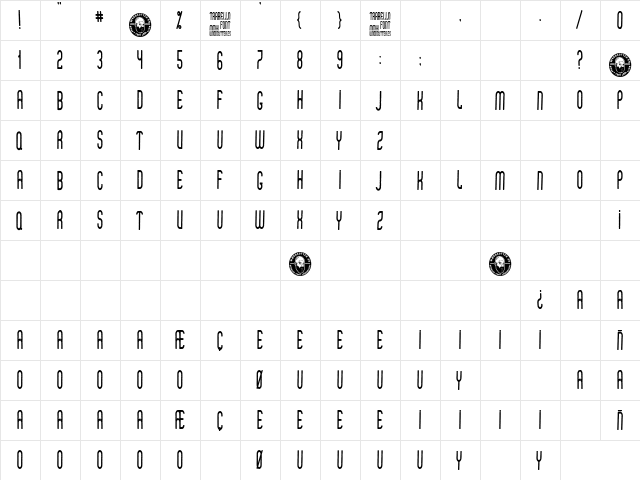
Trabello Regular
Design Context for Trabello Typeface
Trabello is a composed and adaptable typeface that performs quietly and consistently across a wide range of design contexts.